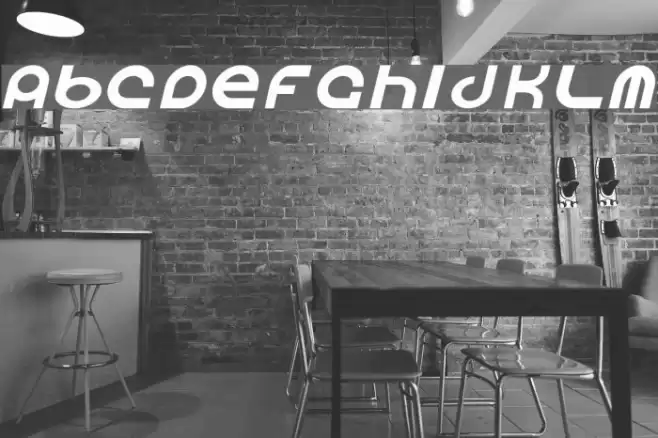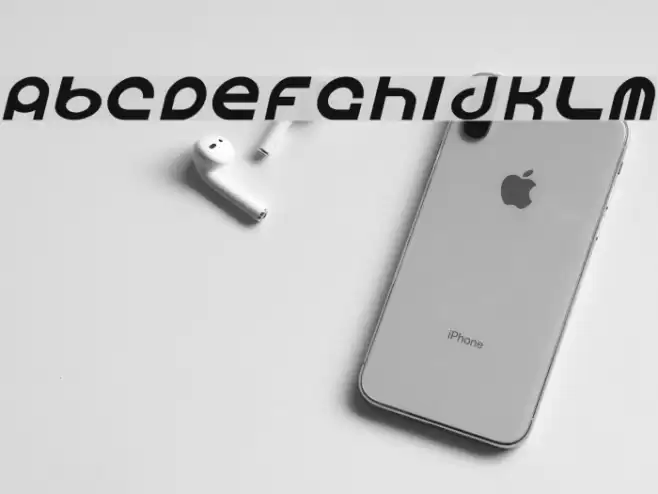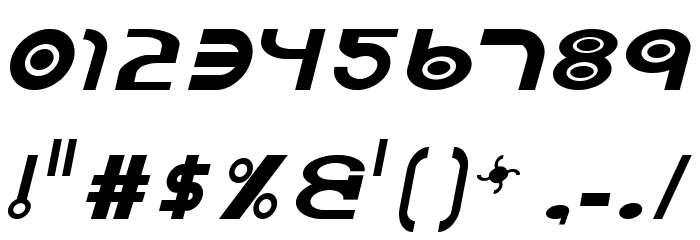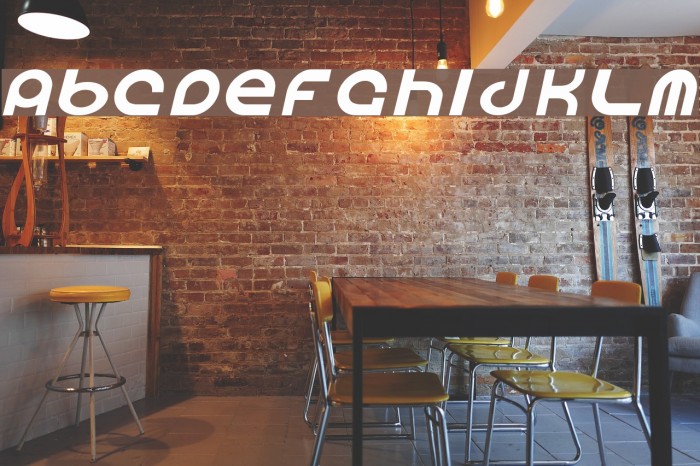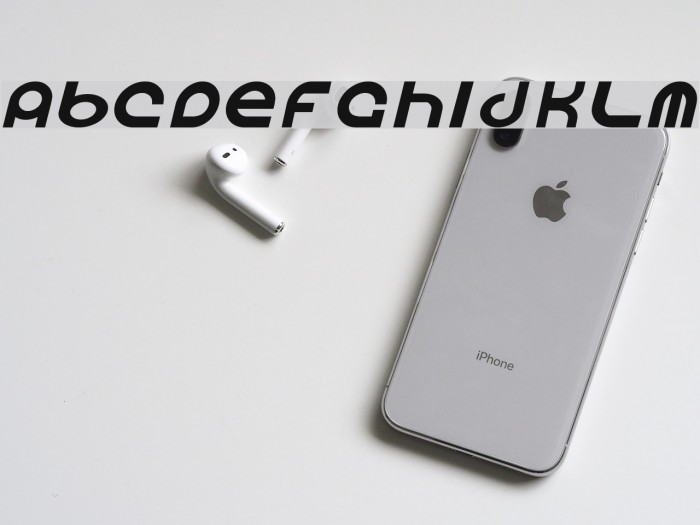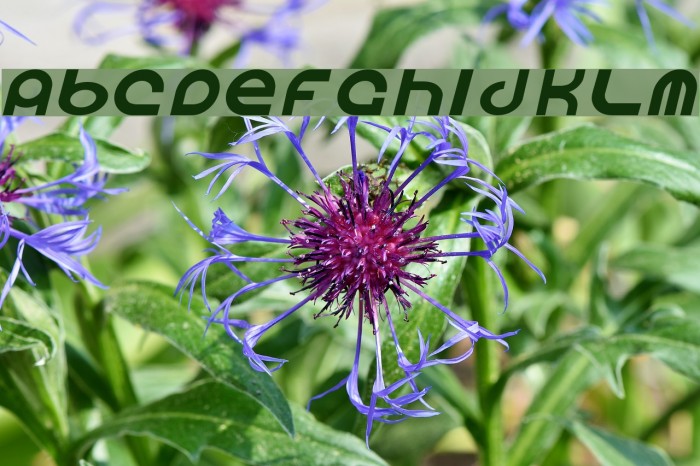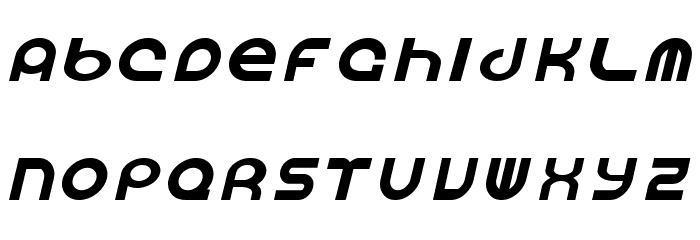
Vocaloid Italic Font
Vocaloid Italic Description
This font features a futuristic and dynamic design with a distinct italic slant, giving it a sense of motion and energy. The characters are bold and rounded, with unique geometric shapes that create a modern and sleek appearance. The uppercase and lowercase letters maintain a consistent style, while the numbers and special characters complement the overall aesthetic. The font's design is both eye-catching and versatile, making it suitable for a variety of creative projects.
A bold, italic, futuristic font with geometric shapes and dynamic style from Sci-fi fonts.
- Proposed Projects: Ideal for technology branding, video game titles, sci-fi posters, and modern advertising.